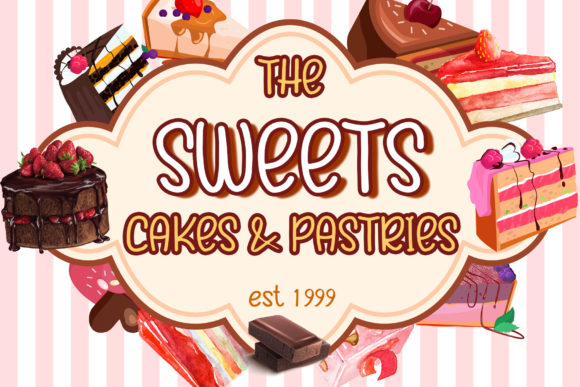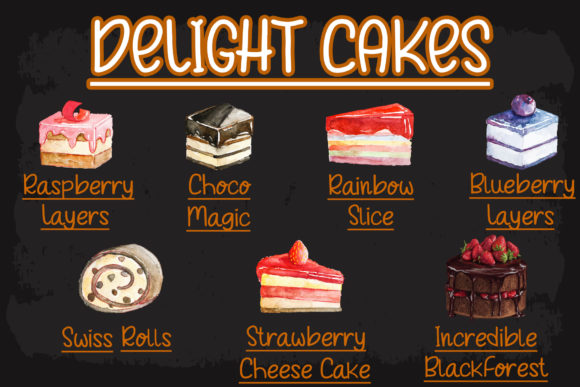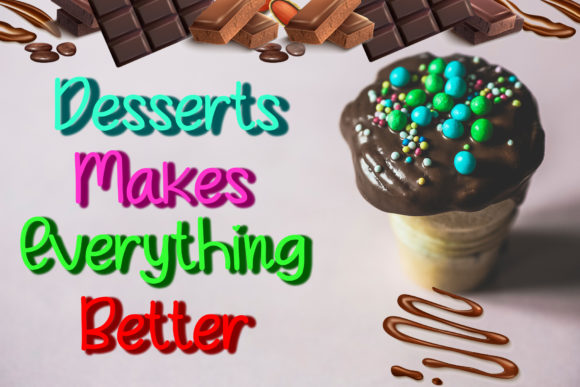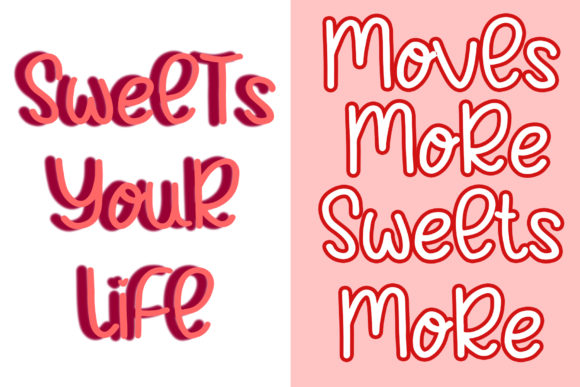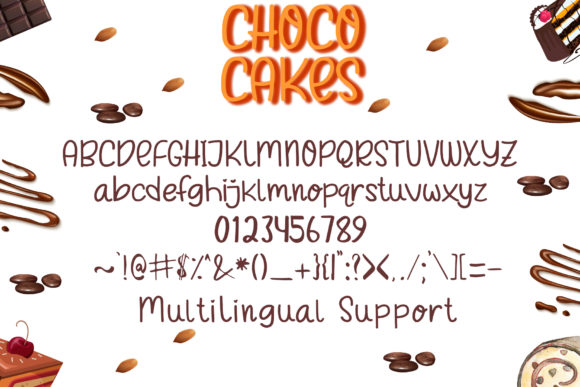
Introducing Choco Cakes Font: The Sweetest Addition to Your Design Collection
Are you a designer, crafter, or baking enthusiast looking for a font that captures the warmth and friendliness of your creations? Look no further than Choco Cakes, a delightful handwritten font that’s sure to become your go-to for all your sweet adventures. In this article, we’ll dive into the world of Choco Cakes, exploring its features, benefits, and uses, and why it’s the perfect addition to your design toolkit.
What is Choco Cakes Font?
Choco Cakes is a neat and friendly handwritten font, carefully crafted to evoke the feeling of warmth, comfort, and indulgence. Its simple yet charming style makes it an ideal choice for a wide range of designs, from baking and cooking to crafting and DIY projects. Whether you’re creating labels, packaging, or social media graphics, Choco Cakes is the perfect companion for your creative journey.
Key Features of Choco Cakes Font
• Handwritten style: Choco Cakes boasts a beautiful, handwritten aesthetic that’s both personal and approachable.
• Simple and clean: The font’s simple style ensures that your designs remain clear and easy to read, even at smaller sizes.
• Versatile: Choco Cakes can be used for a wide range of projects, from baking and cooking to crafting, DIY, and more.
• Easy to read: The font’s friendly and approachable style makes it easy to read, even for younger audiences.
Why Choose Choco Cakes Font?
So, why should you choose Choco Cakes over other fonts? Here are just a few reasons why this font stands out:
• Uniqueness: Choco Cakes offers a fresh and unique take on traditional handwritten fonts, setting it apart from more generic options.
• Emotional connection: The font’s warm and friendly style helps create an emotional connection with your audience, making your designs more relatable and engaging.
• Time-saving: With Choco Cakes, you can create stunning designs in no time, thanks to its simplicity and ease of use.
Choco Cakes is an excellent choice for designers and crafters looking to add a personal touch to their work. Here are some ways you can use this font:
• Branding and packaging: Use Choco Cakes to create custom labels, packaging, and branding materials for your baked goods, crafts, or products.
• Social media graphics: Add a personal touch to your social media graphics, such as recipe cards, tutorials, or promotional materials.
• Stationery and invitations: Use Choco Cakes to create charming stationery, invitations, or greeting cards for special occasions.
Tips for Using Choco Cakes Font
To get the most out of Choco Cakes, here are some tips to keep in mind:
• Experiment with colors: Pair Choco Cakes with a range of colors to create visually appealing designs that match your brand or project’s aesthetic.
• Mix and match: Combine Choco Cakes with other fonts or graphics to create unique and eye-catching designs.
• Keep it simple: Don’t be afraid to keep things simple and clean – Choco Cakes is designed to shine on its own.
In conclusion, Choco Cakes is a delightful handwritten font that’s perfect for designers, crafters, and baking enthusiasts alike. Its simple yet charming style makes it an excellent choice for a wide range of projects, from branding and packaging to social media graphics and stationery. With Choco Cakes, you can add a personal touch to your designs, create an emotional connection with your audience, and make your work stand out from the crowd.